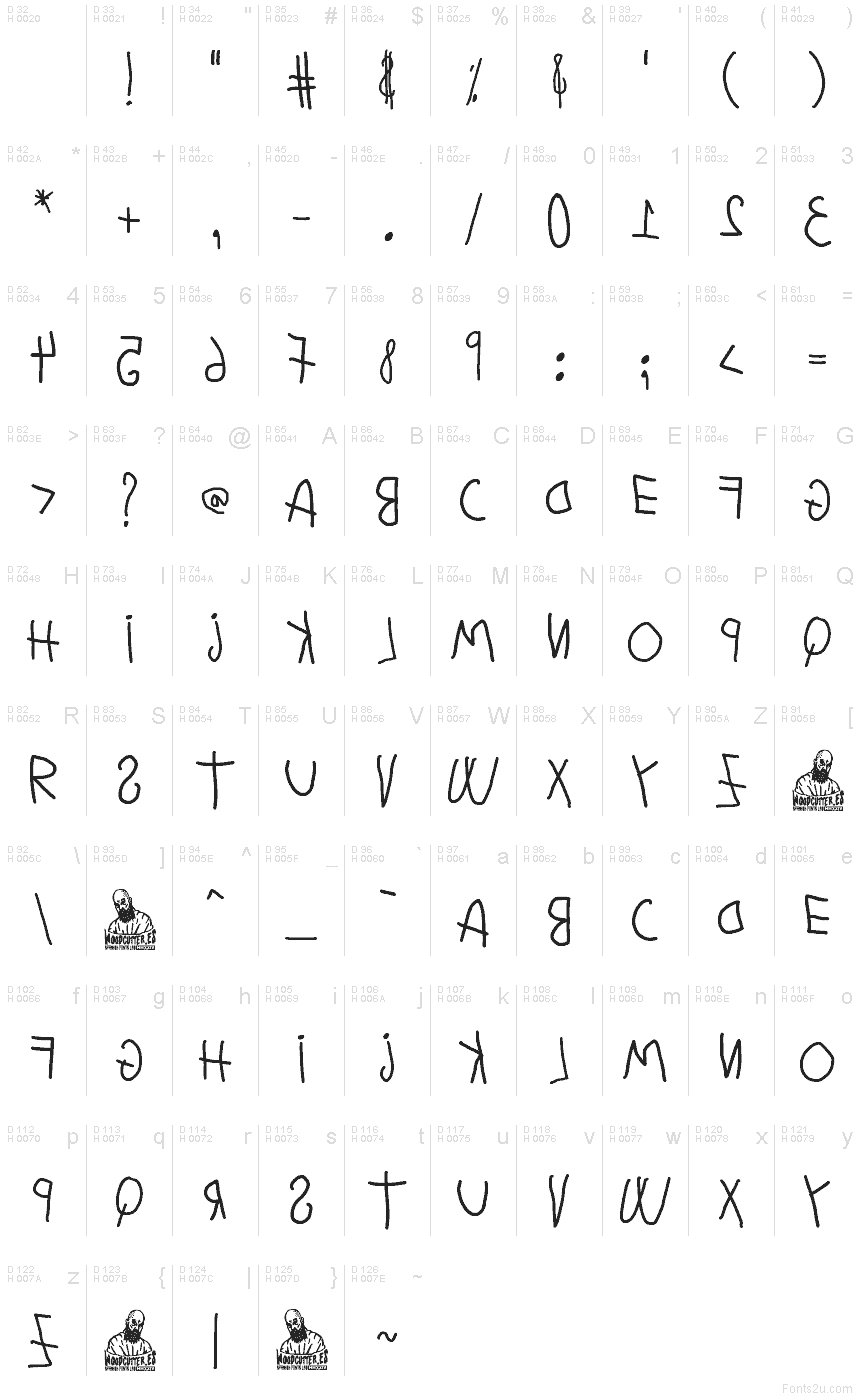
Redrum
Redrum font by Woodcutter is a free rough horror script display font. Its jagged, uneven strokes look scratched in with a marker that’s running dry—thin-to-thick flicks, shaky curves, and a restless baseline that keeps the eyes on edge. Letters lean and lurch like a message scrawled in a hurry, giving headlines that raw, breath-on-the-mirror tension you can’t fake.
Using Redrum, you can nail horror posters, Halloween flyers, indie film titles, escape-room branding, haunted house signage, dark podcast covers, and slasher merch. The spacing breathes just enough for big, punchy words, so set it large and tighten tracking slightly. Pair this free font with a clean condensed sans to anchor credits or taglines without killing the chill.